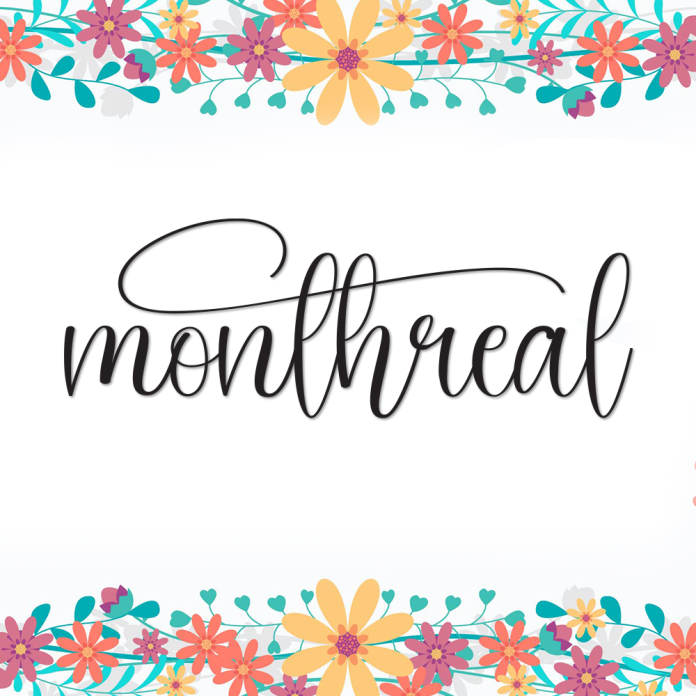
Monthreal is a graceful and flowing handwriting font that captures the natural beauty of personal penmanship. With its soft curves and refined strokes, it delivers an elegant yet approachable look that is perfect for heartfelt designs.
Ideal for wedding invitations, personal branding, love letters, blog headers, and anything that needs a touch of sincerity and style.
Authentic handwritten feel
Stylish, smooth curves with a modern elegance
Great for romantic, personal, or creative projects
Includes uppercase, lowercase, numerals, and punctuation
Let Monthreal add a handwritten charm to your next creative piece.